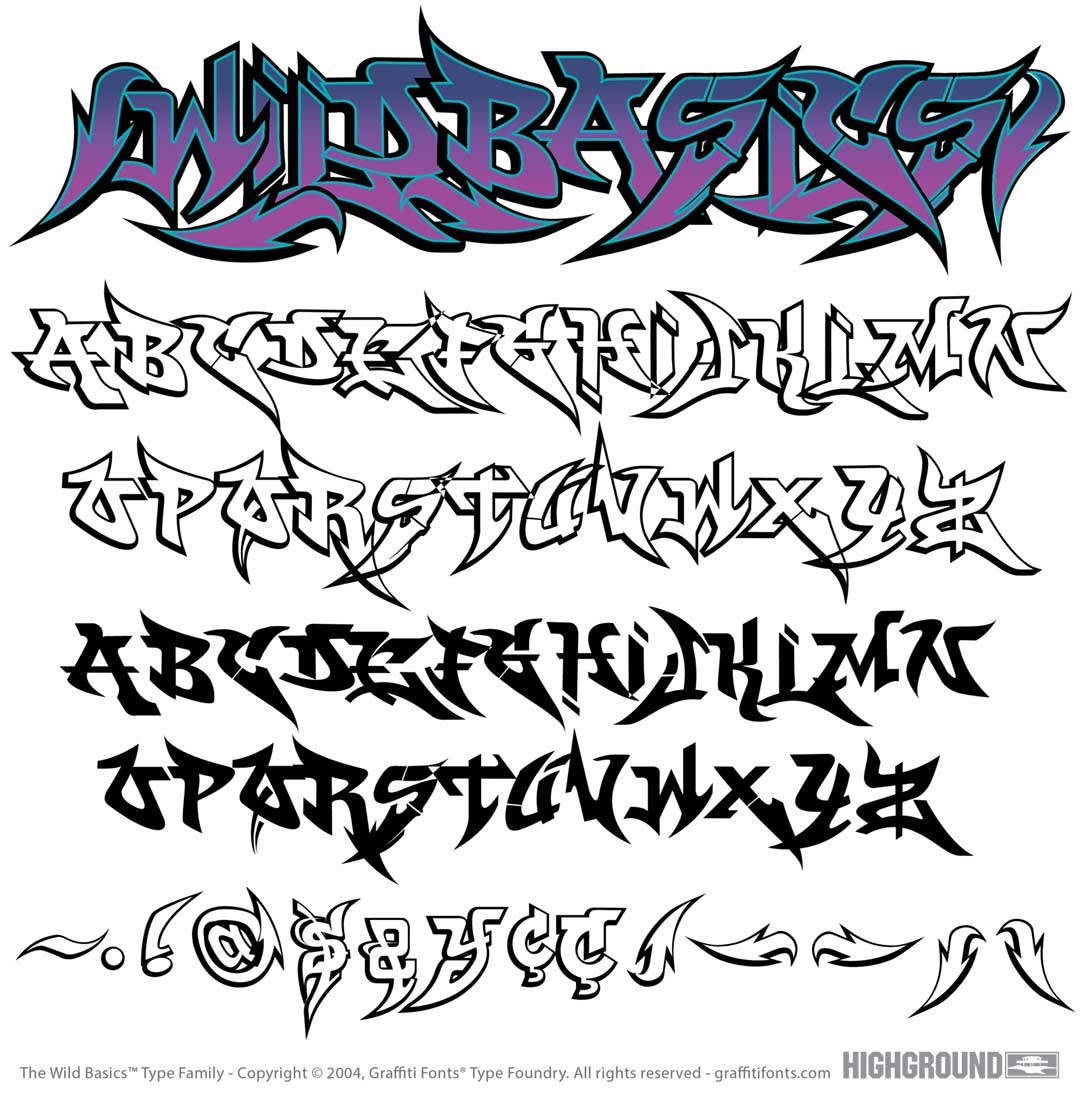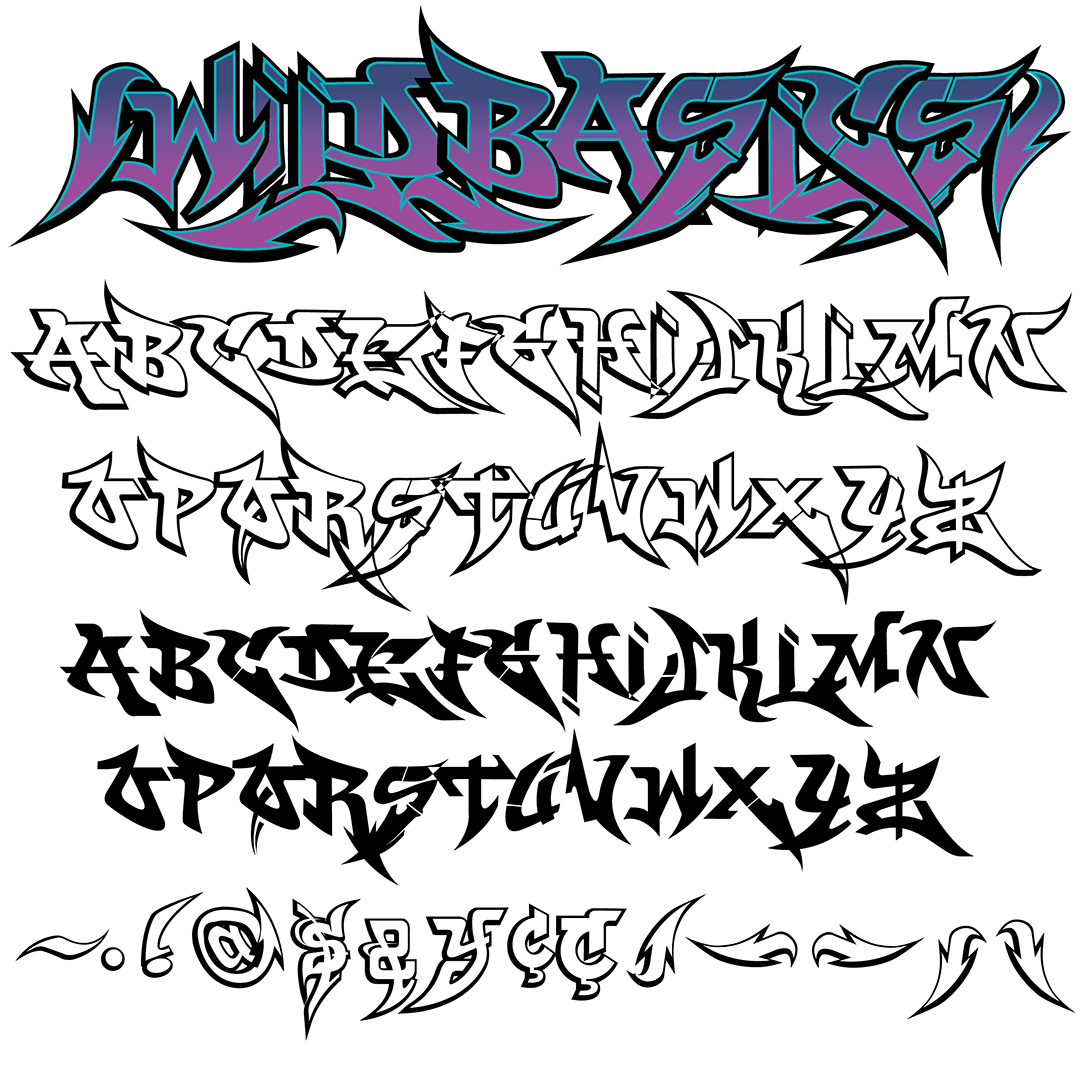
Wild Basics Font
Wild Basics Title Image
Wild Basics Graffiti Alphabet
Wild Basics Graffiti Font Family
WildBasics is an add-on to our "WildStyle" font family. The characters in this font can be seamlessly mixed & matched with those of the main WildStyle font family to add more variety & expand the possibilities however Wild Basic can also be used as a stand-alone font with 82 characters to offer including a solid fill style for lowercase letters and an outline style for capitol letters. Both fill and outline styles will work with the original WildStyle font.